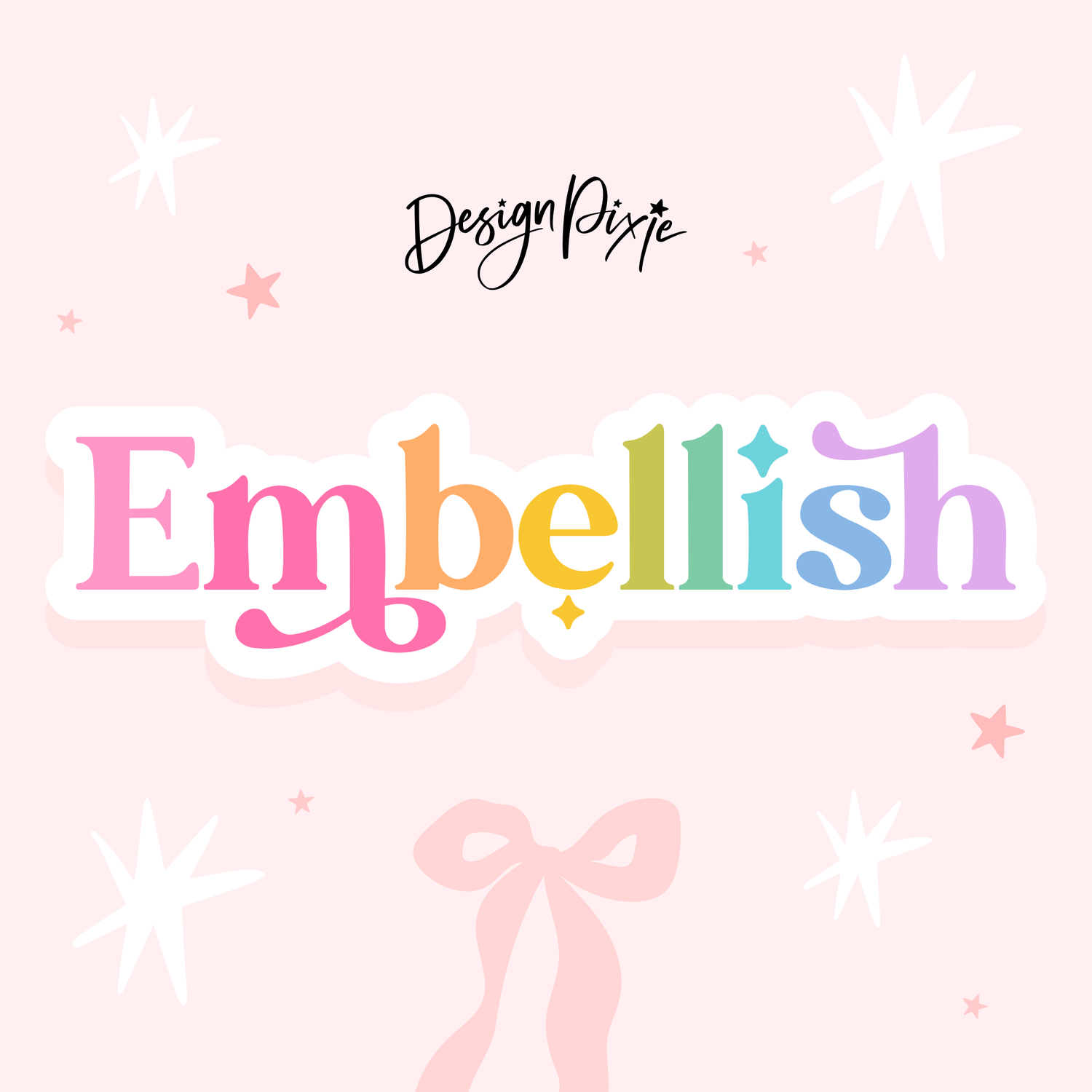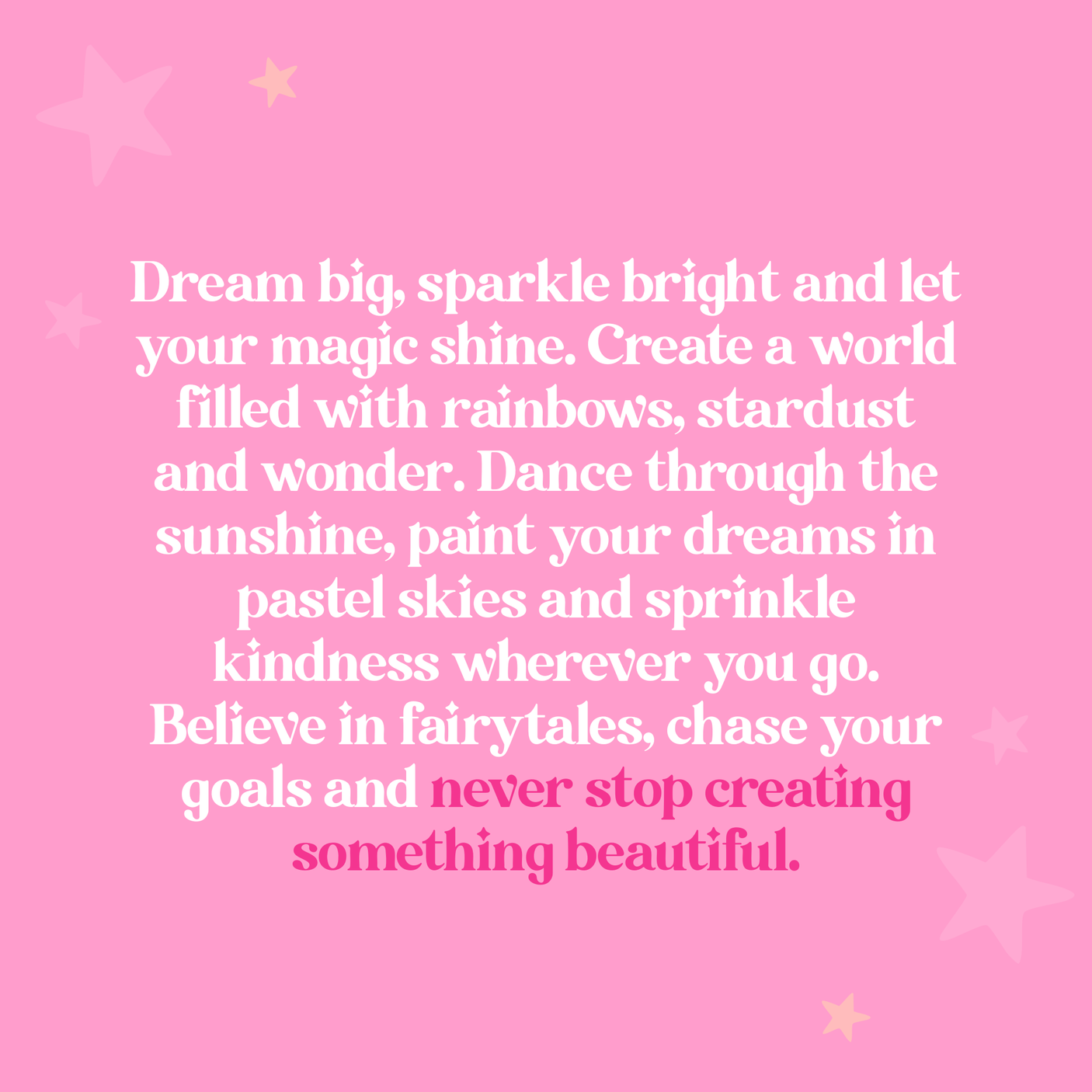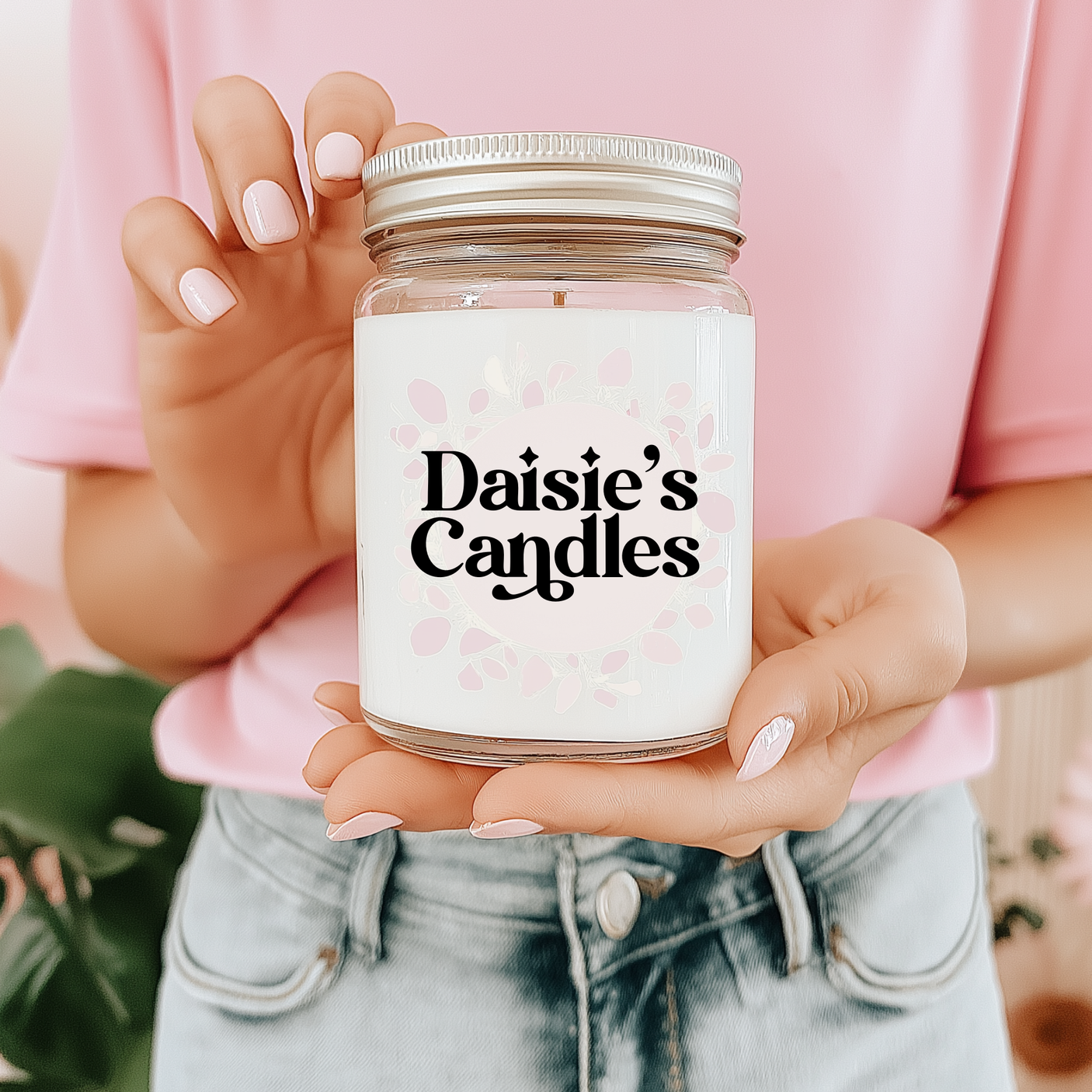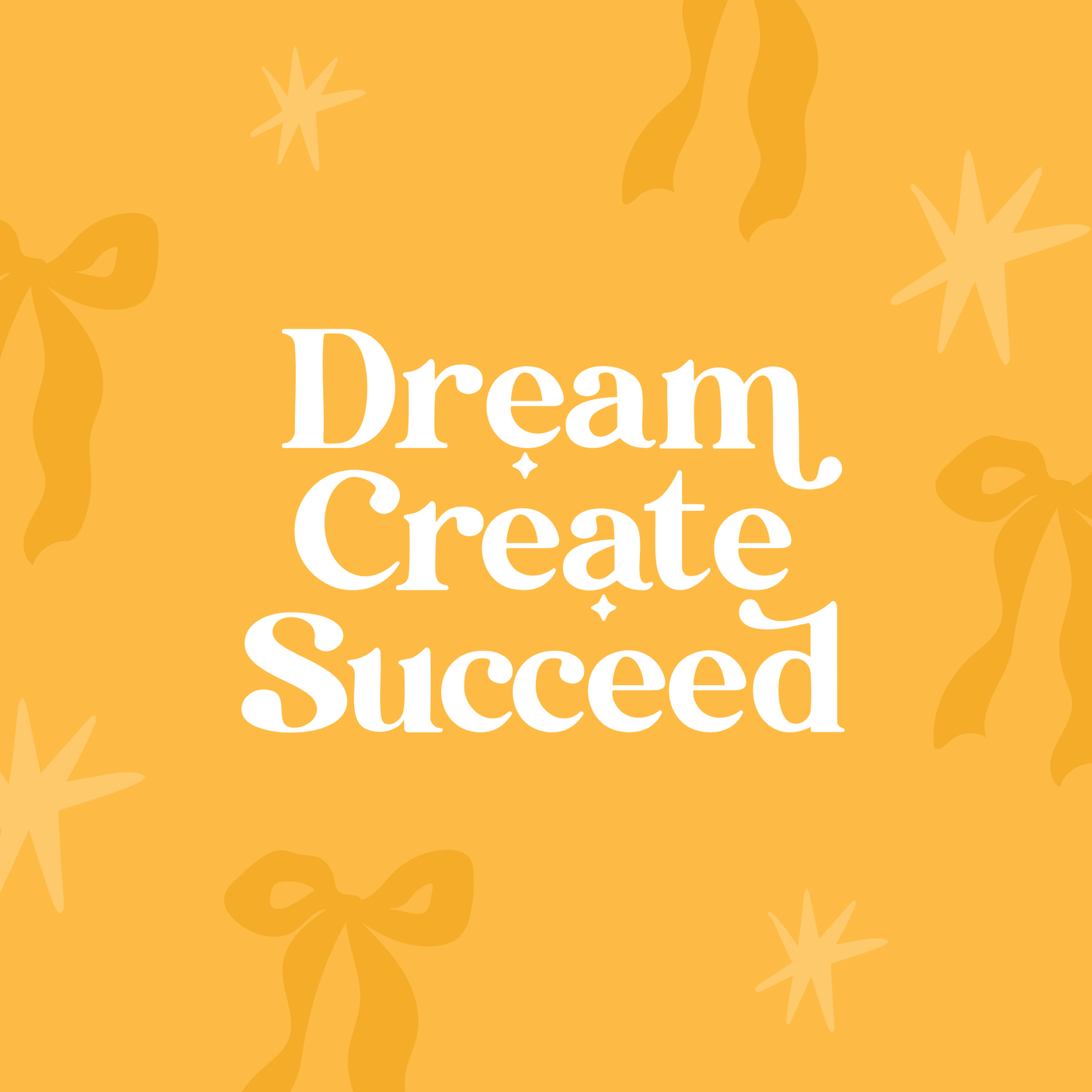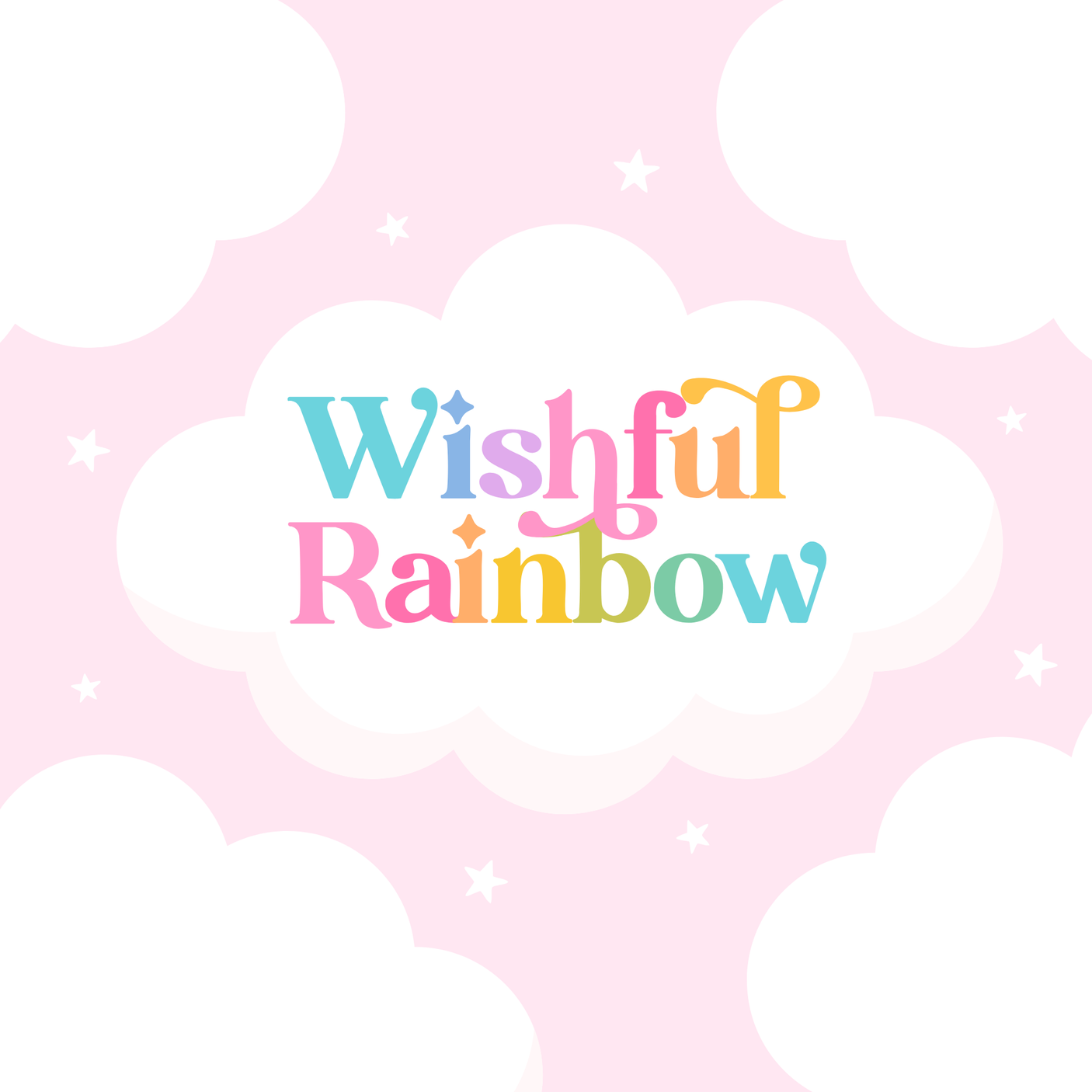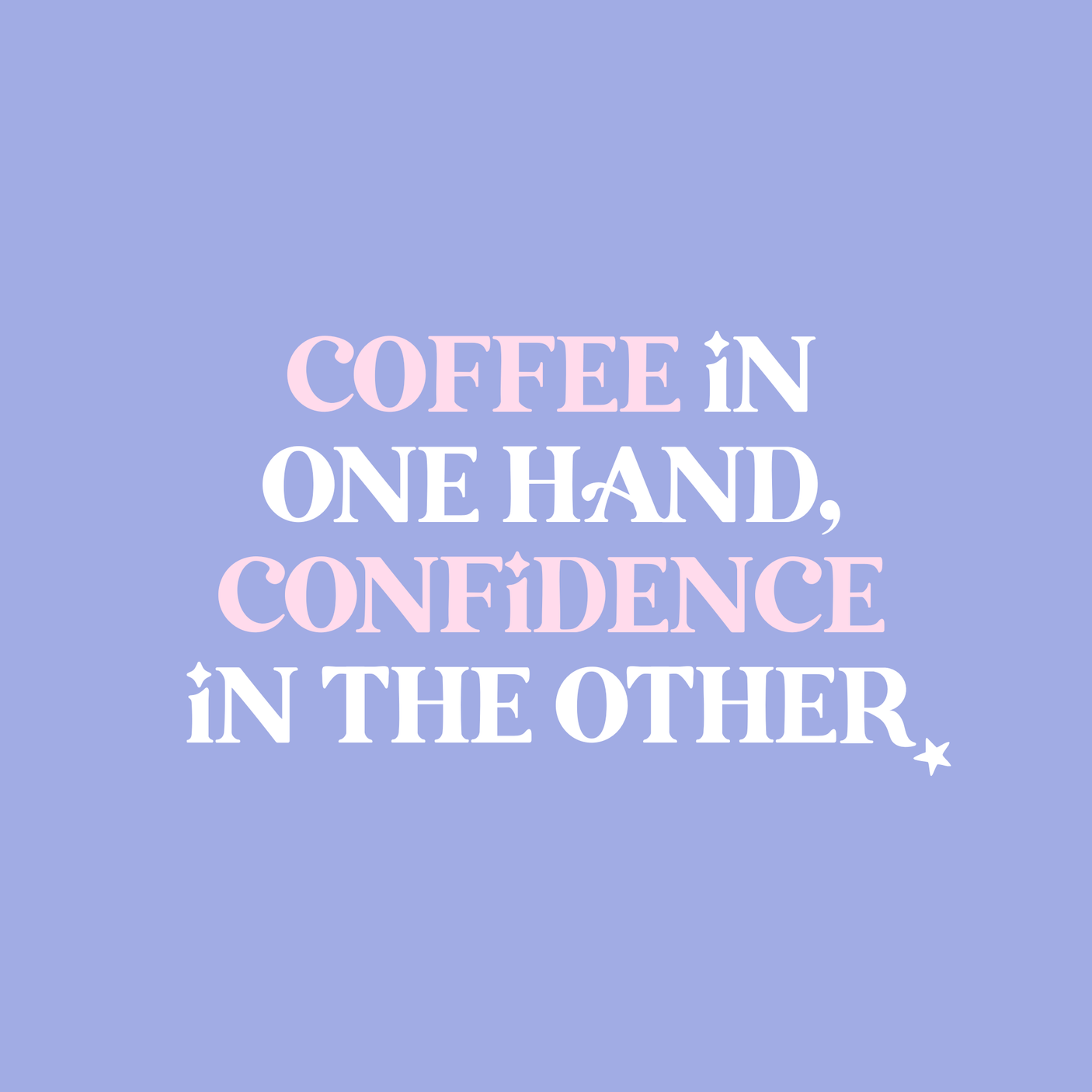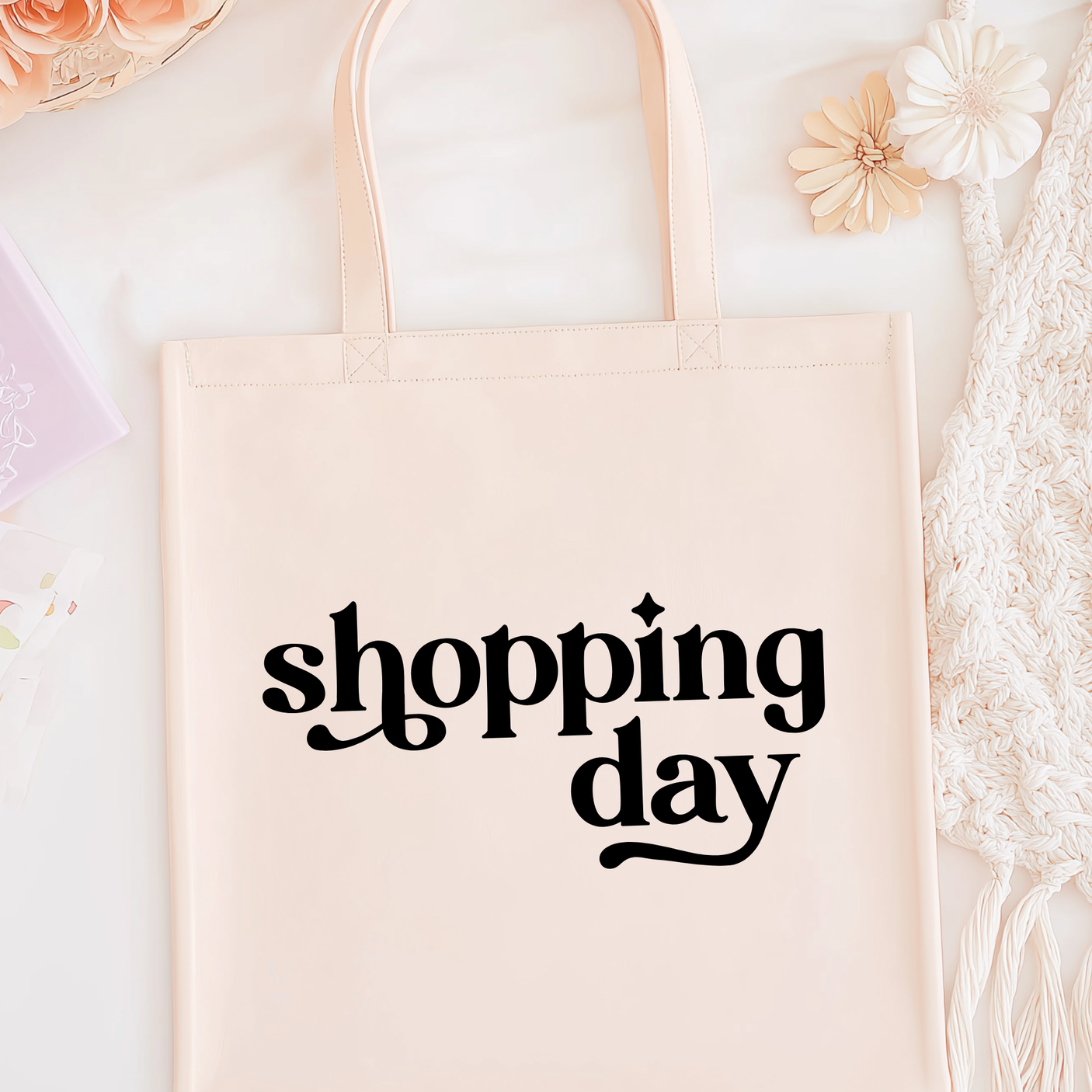
Embellish Font
Say hello to Embellish font, a bold and beautiful serif designed for creators who love classic typography with a decorative twist. This elegant serif features graceful swirl alternates and delicate jewel star dots on the i’s that add a subtle sparkle to your work. It’s sophisticated, timeless, and perfect for designs that need an elevated, stylish touch.
Whether you’re crafting logos, book covers, stationery, quotes, branding, or digital products, Embellish brings a polished, boutique feel to every project. Its bold structure and ornamental details make your words stand out with confidence and charm.